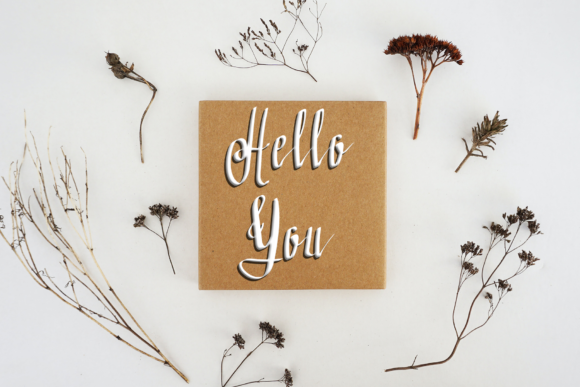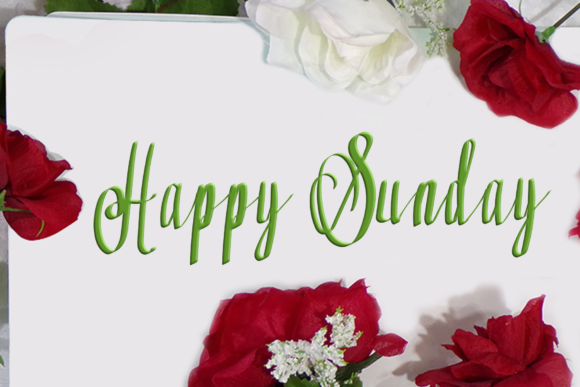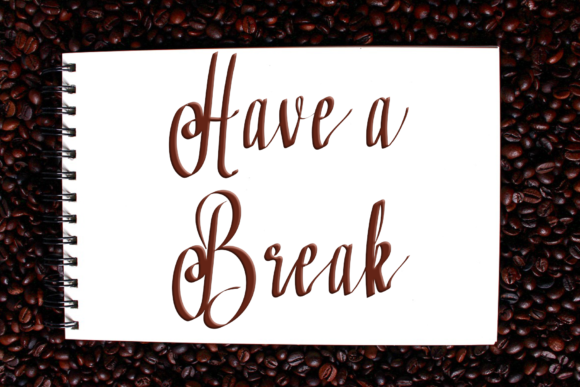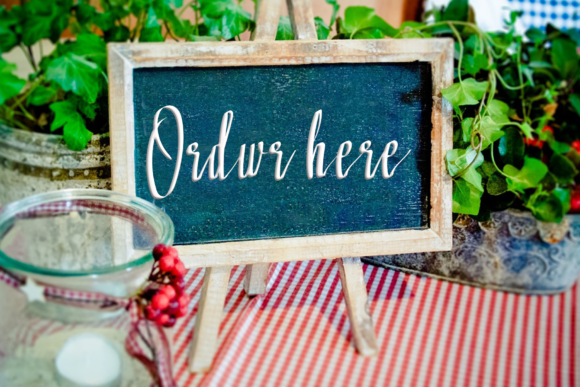
About Simple Black Font
Simple Black is a sweet and delicate handwritten font that exudes a charming and elegant vibe. With its smooth and graceful strokes, this font adds a touch of sophistication to your designs. Whether you’re writing wedding invitations, creating cards, or working on any project that requires a romantic and personalized touch, Simple Black is the perfect choice.
The simplicity and delicacy of Simple Black make it ideal for conveying a sense of elegance and refinement. Each letter is carefully crafted with precision, creating a beautiful and harmonious flow. The gentle curves and balanced proportions give the font a graceful and timeless appeal.
Simple Black is particularly well-suited for wedding-related designs. Its romantic and personalized touch adds a special charm to wedding invitations, save-the-date cards, RSVP cards, and other stationery items. The font enhances the romantic atmosphere and sets the tone for a memorable event.
Additionally, Simple Black can be used in various other design projects. Its versatility allows it to shine in creating heartfelt greeting cards, love notes, quotes, and any other designs that require a touch of elegance and sentimentality. The font’s delicate nature makes it perfect for projects where a gentle and refined aesthetic is desired.
Whether you’re designing for print or digital media, Simple Black brings an air of sophistication and beauty to your creations. Its versatility makes it suitable for a range of design applications, from branding and logos to social media graphics and editorial designs.
In summary, Simple Black is a sweet and delicate handwritten font that adds a touch of elegance and charm to your designs. With its romantic and personalized vibe, it is well-suited for wedding invitations, cards, and any project that requires a refined and sentimental touch. Let Simple Black enhance your designs with its graceful and timeless appeal.